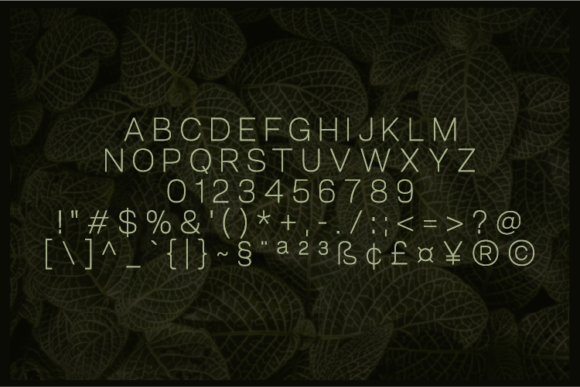
Introducing Annchi Font: The Epitome of Simplicity and Elegance
In the realm of typography, few fonts manage to strike a balance between simplicity and elegance as effortlessly as Annchi Font. This sans serif font is a masterpiece of clean design, boasting an undeniably clean feel that makes it a versatile choice for a wide array of design projects. Whether you’re working on a formal corporate brand identity or a more casual, creative endeavor, Annchi Font promises to elevate your work with its neat and beautiful arrangement of letters.
The Characteristics of Annchi Font
At its core, Annchi Font is defined by its simplicity and elegance. The absence of serifs gives it a modern and streamlined look that resonates with contemporary design trends. However, what truly sets Annchi apart is its meticulous design. Each letter is crafted with precision, ensuring that the font maintains a clean and uncluttered appearance. This attention to detail makes Annchi not just a font, but a statement of sophistication and refinement.
One of the standout features of Annchi Font is its incredible versatility. Its clean and elegant design makes it suitable for a broad spectrum of applications. For formal designs, such as corporate branding, official documents, or luxury product packaging, Annchi Font lends an air of professionalism and prestige. On the other hand, its simplicity and modern appeal also make it an excellent choice for more casual and creative projects, including advertising, digital media, and even personal crafts like journaling or scrapbooking.
Why Designers and Crafters Love Annchi Font
Designers and crafters often find themselves on the hunt for fonts that can meet the demands of a variety of projects. Annchi Font checks all the boxes. Here are a few reasons why it has become a favorite among creative professionals and hobbyists alike:
- Legibility: The clean design of Annchi Font ensures that it remains highly legible, even at smaller sizes. This makes it perfect for body text in articles, blog posts, and other written materials.
- Ease of Pairing: Annchi Font pairs well with a variety of other typefaces, making it easy to use in multi-font designs. Its neutrality allows it to complement more decorative fonts without overpowering them.
- Emotional Connection: Despite its simplicity, Annchi Font manages to convey a sense of elegance and sophistication. This emotional connection makes it an excellent choice for projects where the tone is meant to be upmarket or luxurious.
Using Annchi Font in Your Projects
- Experiment with Sizes: While Annchi Font looks great at larger sizes, its legibility also makes it suitable for smaller text. Don’t be afraid to experiment with different sizes to find the perfect balance for your project.
- Play with Colors: The clean design of Annchi Font allows it to work well with a variety of color schemes. Whether you’re working with a monochromatic palette or something more vibrant, Annchi Font will adapt beautifully.
- Mix and Match: Don’t be afraid to pair Annchi Font with other fonts. Its versatility makes it an excellent base font that can be complemented with more decorative or specialized typefaces.
Annchi Font is more than just a typeface; it’s a design statement. Its simple yet elegant design makes it a valuable addition to any designer’s toolkit. Whether you’re creating formal documents, crafting a brand identity, or working on a personal project, Annchi Font offers the versatility and sophistication you need to make your work stand out. With its clean feel and beautiful arrangement of letters, Annchi Font is poised to become your go-to choice for projects that demand a touch of elegance and a lot of professionalism.